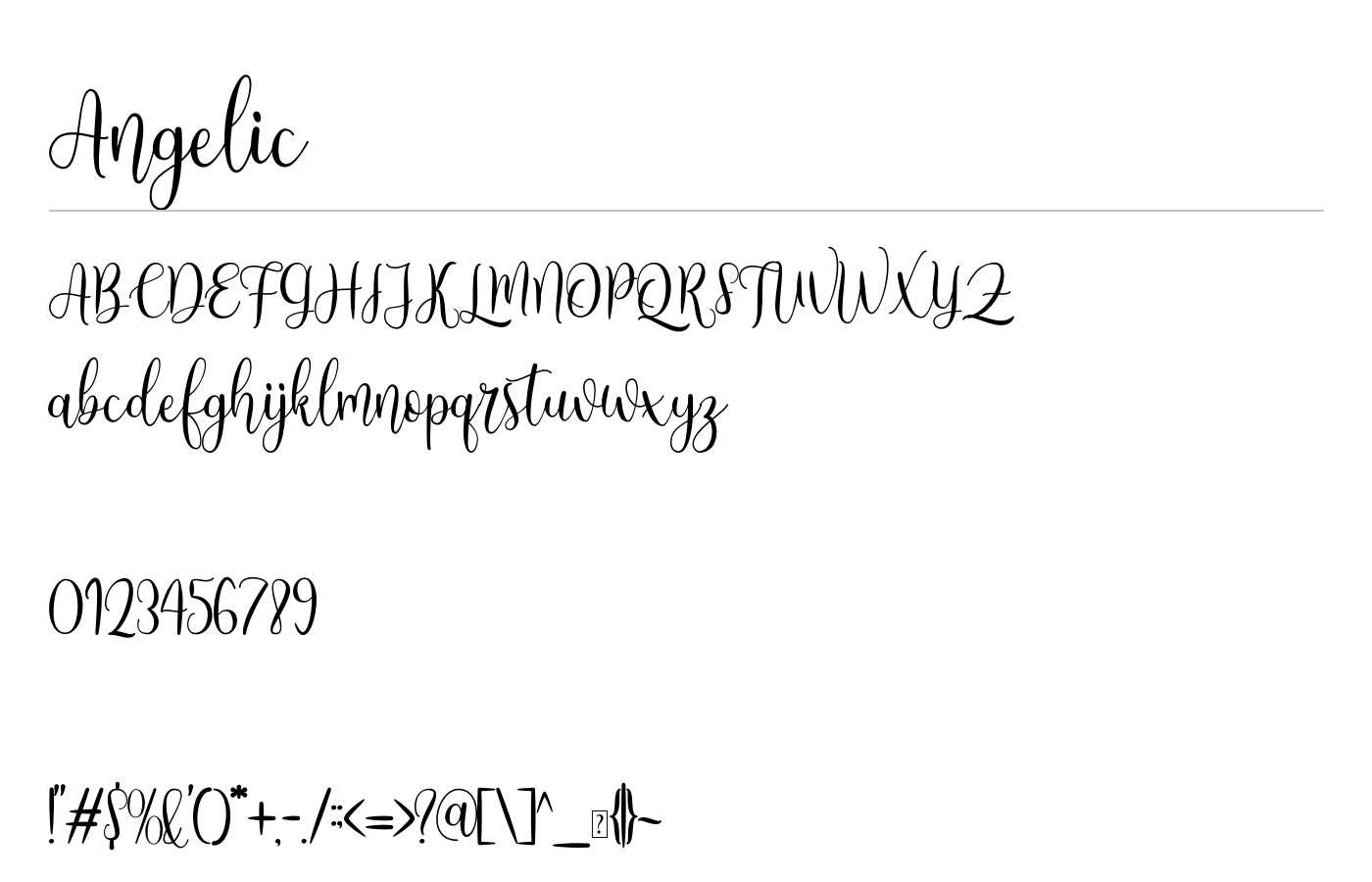
Angelic is a delicate, hand-drawn script font with a light weight and elegant flow, featuring tall, slender letterforms with high contrast between thin and slightly thicker strokes. Its graceful curves and unique swashes give it a charming, romantic feel, making it perfect for wedding invitations, fashion branding, and feminine design projects that seek a soft, sophisticated touch. This font works best in display uses like logos and headlines where its artistic style can shine.
Angelic Font
About Angelic Font